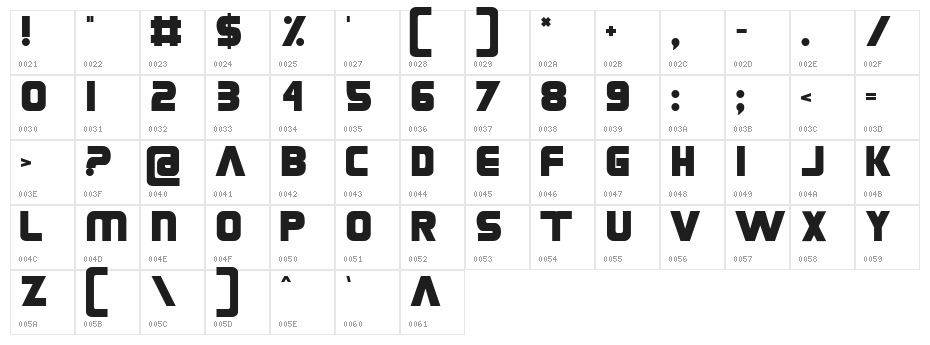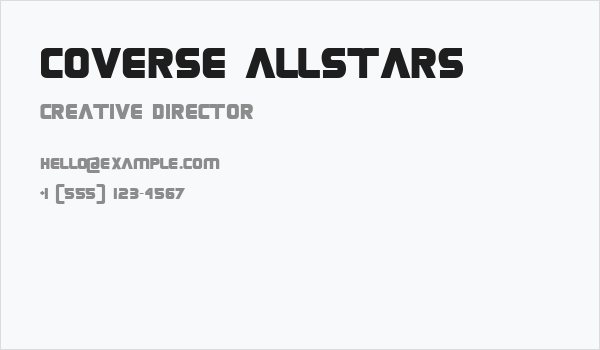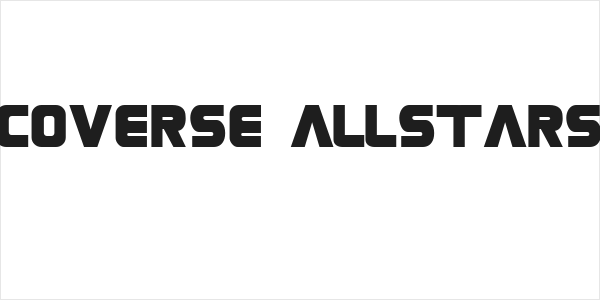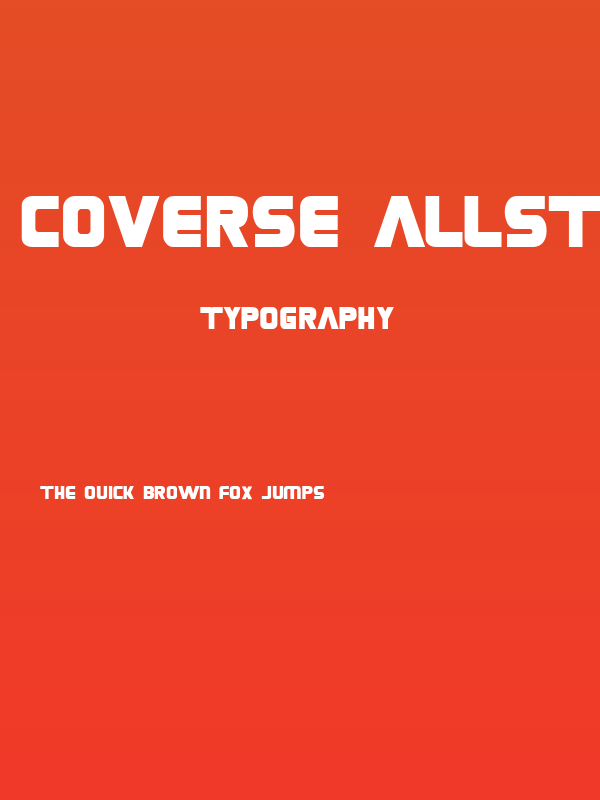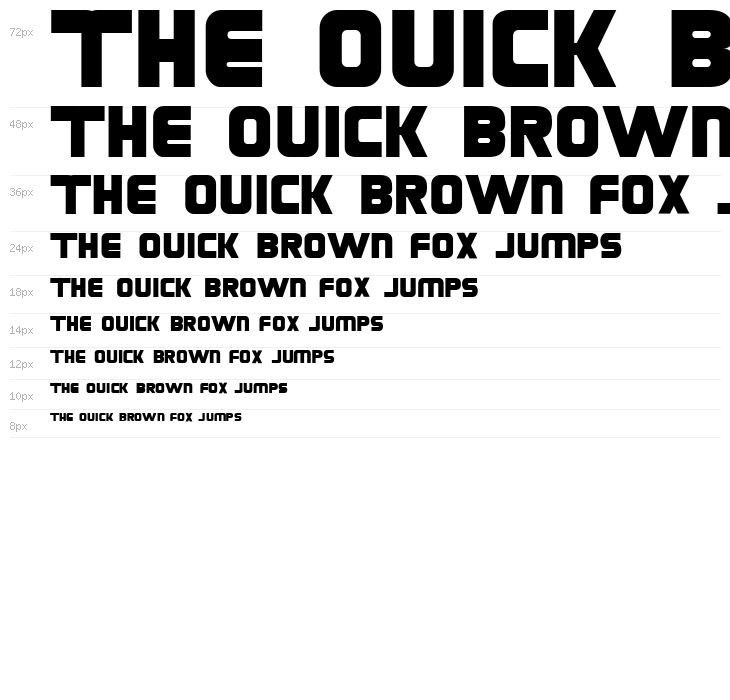
Coverse Allstars Font
Coverse Allstars Description
This font features a bold and robust design with a strong geometric structure. The characters are uniformly thick, providing a sense of stability and strength. The uppercase letters are particularly striking, with a blocky appearance that commands attention. The numerals and special characters maintain the same boldness, ensuring consistency across all text. The overall look is modern and industrial, making it suitable for projects that require a strong visual impact.
| Proposed Projects | Ideal for branding, posters, headlines, and any design requiring a strong, impactful typeface. |